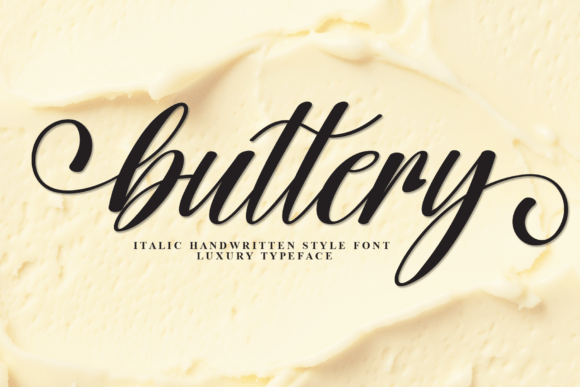
The Magic of Buttery Font: Elevate Your Designs with Whimsy and Charm
Have you ever been in the midst of a design project, pouring your heart and soul into it, only to realize that something’s missing? You’re not alone! I recall working on a wedding invitation project, determined to create something truly special for the happy couple. The design was beautiful, but the font I was using just wasn’t doing it justice. That’s when I stumbled upon Buttery Font, and it completely transformed my design.
Buttery Font is more than just a font – it’s an enchanting handwritten display font that radiates sweetness and friendliness. Its playful and whimsical nature effortlessly adds a delightful twist to your projects, making it perfect for designers, crafters, and creative hobbyists alike.
Here’s what I’m obsessed with about Buttery Font:
- ✨ Sweet and Friendly Vibes: This font exudes warmth and approachability, making it perfect for projects that require a personal touch.
- ✅ Highly Versatile: From wedding invitations to greeting cards, and even playful illustrations, Buttery Font adapts seamlessly to various design contexts.
- 🎉 Attention-Grabbing: Let’s face it – this font is a showstopper! It adds a pop of personality to any design, making it hard to ignore.
Now, I’m not going to sugarcoat it – there are a few minor quirks to be aware of:
- 🤔 Limited Use in Small Sizes: Buttery Font shines in larger sizes, but it can become a bit tricky to read in smaller sizes. Keep this in mind when designing for body text or captions.
- ⚠️ Occasional Kerning Issues: As with any font, there might be some kerning issues, especially with certain letter combinations. Take the time to adjust and fine-tune for optimal results.
- Experiment with OpenType features, such as stylistic alternates and glyphs, to add more personality to your text.
Exploring Alternatives: Similar Fonts to Buttery Font
The Story Behind Buttery Font: Designer Inspiration
Buttery Font was born from a passion project by an independent designer who sought to create a font that captured the essence of warmth and friendliness. Inspired by classic handwritten scripts and a dash of modern playfulness, this font was crafted to bring joy and whimsy to designers and their projects.
| Is Buttery Font suitable for body text? | While Buttery Font shines in display sizes, it’s not ideal for body text due to its script nature and potential readability issues in smaller sizes. |
| Does Buttery Font come with OpenType features? | Yes, Buttery Font includes OpenType features such as stylistic alternates and glyphs, allowing for greater creative flexibility. |
Buttery Font is a delightful addition to any designer’s toolkit. Its whimsical nature and friendly vibes make it perfect for a wide range of creative projects. So go ahead, give Buttery Font a try, and watch your designs come to life with charm and individuality!